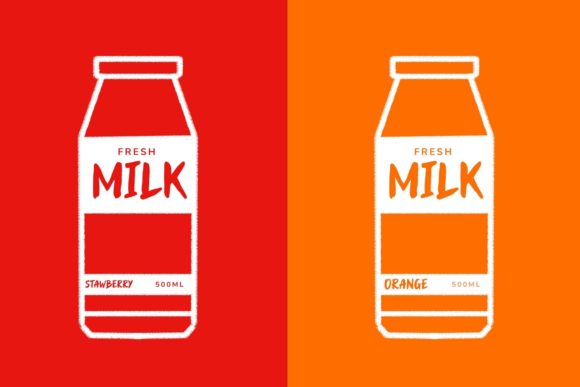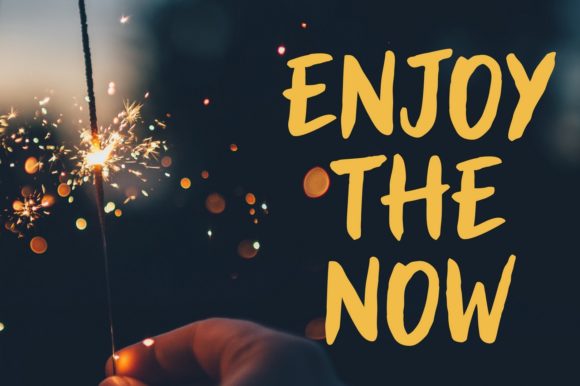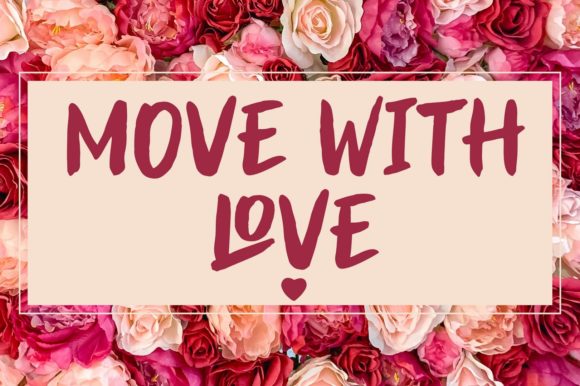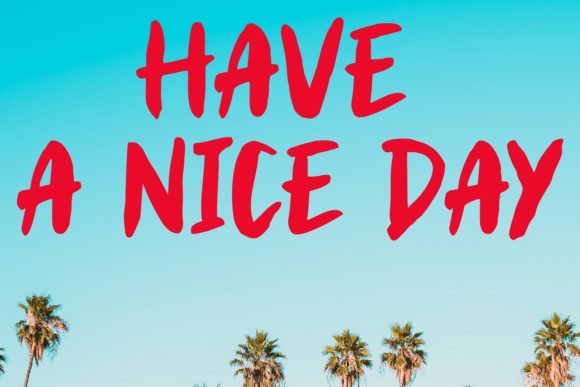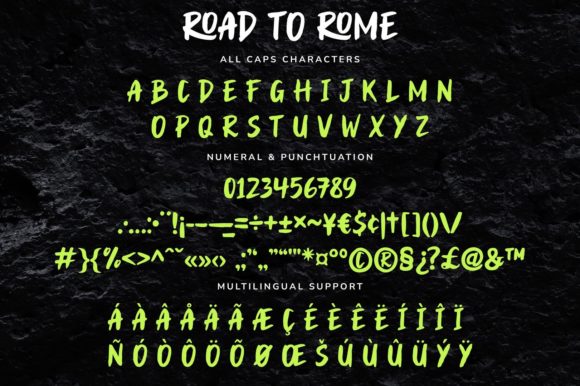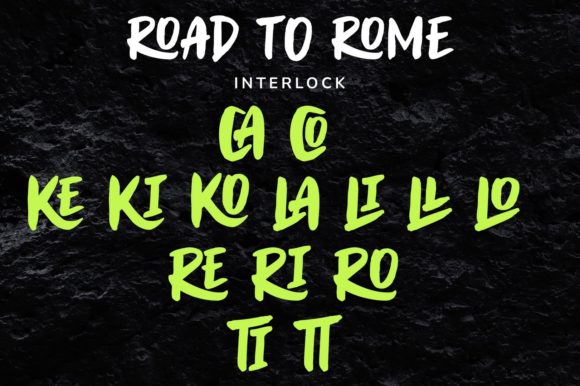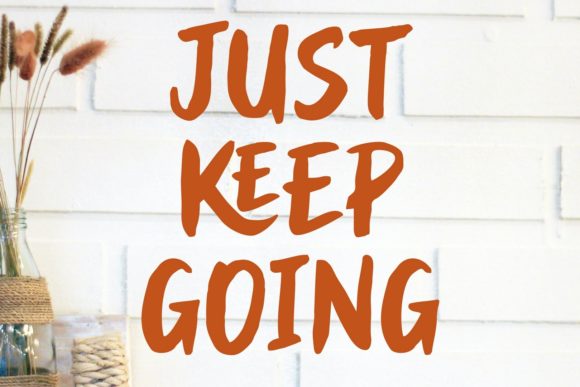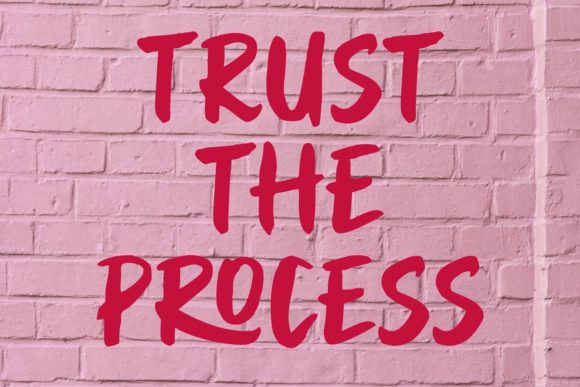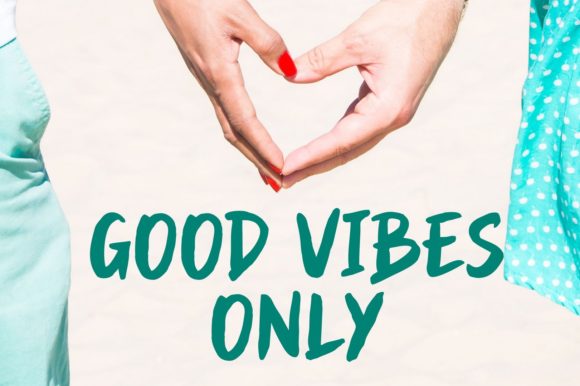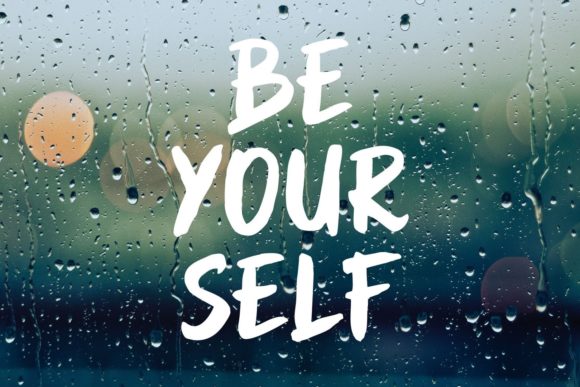
Road to Rome Font
About Road to Rome Font
“Road to Rome” is a font that exudes a casual, relaxed, and urban style, reminiscent of paint brushed strokes. This handwritten font effortlessly combines these elements to create a distinct aesthetic. The font’s PUA encoding adds an extra layer of convenience, granting easy access to all glyphs and swashes.
The font’s allure stems from its ability to seamlessly blend casual, relaxed, and urban vibes. Its handcrafted appearance contributes to an aesthetic that is visually appealing and uniquely textured.
“Road to Rome” flourishes in a variety of design contexts, adding an authentic touch to your creative projects. Whether used for branding, posters, social media graphics, or any application that benefits from a casual and urban aesthetic, its versatility is a standout feature.
In essence, “Road to Rome” is more than just a font; it’s a journey through casual urban artistry. Its potential to enhance designs with an authentic, handcrafted feel, coupled with its PUA encoding, makes it an invaluable tool for designers seeking to create visually engaging and textured visuals with ease.